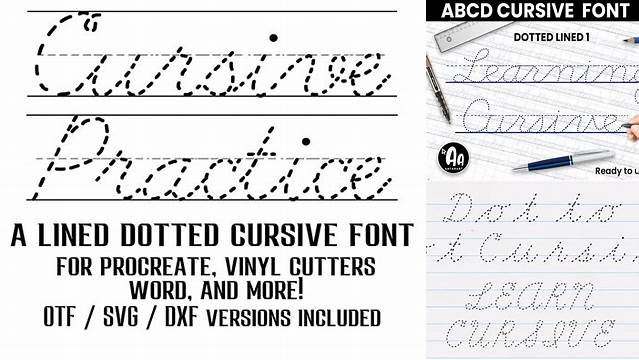
Free Cursive Dotted Fonts: Download & Trace!
Hey guys! Ever wanted to teach someone cursive writing in a super fun and engaging way? Or maybe you're just looking to brush up on your own handwriting skills? Well, you’ve come to the right place! Let’s dive into the world of free cursive dotted trace fonts. We'll explore where to find them, how to use them, and why they're so awesome. Get ready to download, trace, and transform your handwriting!
Understanding Cursive Dotted Trace Fonts
So, what exactly are cursive dotted trace fonts? Simply put, these are fonts designed with dotted lines that you can trace over. They're perfect for beginners learning cursive, kids practicing their penmanship, or anyone who wants a guided approach to improving their handwriting. The beauty of these fonts lies in their simplicity and effectiveness; they provide a visual guide, making the learning process much easier and more enjoyable. You can find various styles, from basic cursive to more elaborate and artistic fonts. The goal is to follow the dotted lines, getting a feel for the curves and loops that make cursive writing so elegant. Using cursive dotted trace fonts ensures that learners develop muscle memory, which is essential for mastering handwriting. Plus, the act of tracing itself can be quite therapeutic! Whether you're a teacher, parent, or student, these fonts are an invaluable tool for anyone interested in mastering the art of cursive.
Benefits of Using Dotted Cursive Fonts
Dotted cursive fonts offer a plethora of benefits for learners of all ages. For starters, they provide a structured way to learn cursive, making it less intimidating. Instead of staring at a blank page, wondering where to begin, learners have clear guidelines to follow. This can boost their confidence and keep them motivated. Secondly, using dotted cursive fonts helps develop fine motor skills. The act of carefully tracing the dotted lines strengthens hand muscles and improves hand-eye coordination. This is particularly beneficial for young children who are still developing these essential skills. Additionally, dotted fonts promote better letter formation. By consistently tracing the correct shapes, learners are more likely to internalize the proper way to write each letter. This reduces the chances of developing bad habits that can be difficult to break later on. Finally, these fonts can make learning cursive more engaging and fun! The visual aid and interactive nature of tracing can transform what might otherwise be a tedious task into an enjoyable activity. So, whether you’re a teacher looking for a new way to teach cursive or an adult wanting to improve your handwriting, dotted cursive fonts are a fantastic option.
Where to Find Free Cursive Dotted Fonts
Finding free cursive dotted fonts is easier than you might think! The internet is brimming with resources offering a variety of options. One of the best places to start is by searching online font repositories like FontSpace, DaFont, and MyFonts. These sites often have categories specifically for handwriting or dotted fonts, making your search a breeze. Another great resource is Teachers Pay Teachers, where many educators share free or low-cost dotted font resources. You might also find some hidden gems on educational websites and blogs that offer free printables and handwriting worksheets. When searching, use specific keywords like “free cursive dotted font,” “traceable cursive font,” or “handwriting practice font” to narrow down your results. Be sure to check the licensing agreements for each font to ensure it's free for personal or commercial use, depending on your needs. Also, keep an eye out for font bundles or packages, as these can offer a variety of styles and sizes in one convenient download. With a little bit of searching, you'll be able to find the perfect free cursive dotted font to suit your needs.
Creating Practice Sheets with Your New Font
Now for the fun part: creating practice sheets using your newly installed cursive dotted font! Fire up your favorite word processor (like Microsoft Word, Google Docs, or LibreOffice) or design software (such as Adobe InDesign or Canva). In your document, select the cursive dotted font from the font menu. Type the letters, words, or sentences you want to include in your practice sheet. Adjust the font size and spacing to suit your needs. You might want to create a template with rows of dotted letters or words for learners to trace. Add some visual elements, like borders or illustrations, to make the practice sheet more engaging. Consider including both uppercase and lowercase letters, as well as numbers and punctuation marks. For a more advanced exercise, create sentences or short paragraphs for learners to practice their cursive writing in context. Once you're happy with your practice sheet, save it as a PDF file for easy printing. You can then print out multiple copies for use in the classroom or at home. With a little creativity, you can create personalized and effective practice sheets that will help learners master the art of cursive writing.
Tips for Effective Cursive Tracing Practice
To make the most of your cursive tracing practice, here are some helpful tips. First, encourage learners to trace slowly and carefully. Focus on following the dotted lines as precisely as possible, rather than rushing through the exercise. Second, emphasize the importance of proper posture and grip. Sitting upright and holding the pen correctly can make a big difference in handwriting quality. Third, provide regular feedback and encouragement. Let learners know what they're doing well and offer constructive criticism on areas that need improvement. Fourth, incorporate different types of practice exercises. For example, you might start with individual letters, then move on to words, and finally to sentences. Fifth, make it fun! Use colorful pens or markers, and incorporate games or activities that make learning cursive more engaging. Sixth, be patient and persistent. Mastering cursive writing takes time and practice. Don't get discouraged if you don't see results immediately. With consistent effort, learners will gradually improve their handwriting skills. Finally, celebrate successes along the way. Acknowledge and reward progress to keep learners motivated and engaged. By following these tips, you can create a positive and effective cursive tracing practice experience.
Cursive Dotted Fonts for Different Age Groups
When choosing a cursive dotted font, it's important to consider the age and skill level of the learner. For younger children who are just beginning to learn cursive, a simpler, more basic font is often the best choice. Look for fonts with large, clear dots and easy-to-follow letterforms. Avoid fonts with overly elaborate flourishes or complex connections between letters. As learners progress, you can gradually introduce more challenging fonts with smaller dots and more intricate designs. For older children and adults, you might choose a font that closely resembles traditional cursive handwriting. Consider the specific needs and preferences of the learner when making your selection. Some learners may prefer a bolder font, while others may prefer a lighter, more delicate font. Experiment with different fonts until you find one that is comfortable and effective for the individual learner. Also, be sure to take into account the size of the practice sheet and the amount of space available for tracing. A font that looks great on a computer screen may not be as effective when printed out in a smaller size. By carefully considering the age and skill level of the learner, you can choose a cursive dotted font that will maximize their learning potential.
Maintaining Handwriting Skills After Tracing
So, you've diligently practiced tracing your cursive dotted font, and your handwriting is looking pretty good. But how do you maintain those skills over time? The key is to continue practicing regularly, even after you've mastered the basics. One way to do this is to incorporate cursive writing into your daily routine. Write notes, letters, or journal entries in cursive. Use cursive to address envelopes or sign your name on documents. The more you use cursive, the more natural and effortless it will become. Another helpful tip is to periodically review your handwriting and identify areas that need improvement. Focus on practicing those specific letters or connections that you find challenging. You might also consider joining a handwriting group or taking a calligraphy class to further refine your skills. Additionally, pay attention to your posture and grip when writing. Maintaining good habits will help prevent your handwriting from deteriorating over time. Finally, remember that handwriting is a skill that requires ongoing effort. Don't get discouraged if your handwriting occasionally slips. Just keep practicing, and you'll be able to maintain your cursive writing skills for years to come.
Exploring Different Styles of Cursive Fonts
The world of cursive fonts is vast and varied, with styles ranging from traditional to modern, elegant to playful. Exploring different styles of cursive fonts can add a unique flair to your handwriting and allow you to express your personality. Traditional cursive fonts, like Spencerian and Palmer, are characterized by their graceful curves and formal appearance. These fonts are often used for calligraphy and formal invitations. Modern cursive fonts, on the other hand, tend to be more streamlined and contemporary. They often feature simpler letterforms and a more relaxed feel. Elegant cursive fonts are perfect for adding a touch of sophistication to your writing. These fonts typically have delicate strokes and intricate details. Playful cursive fonts are a fun and whimsical choice for informal writing. They often feature quirky letterforms and a lighthearted feel. Experiment with different styles of cursive fonts to find one that suits your personal taste and the specific occasion. You might even consider creating your own custom cursive font to truly express your individuality. With so many different styles to choose from, the possibilities are endless.
The History and Evolution of Cursive Writing
Cursive writing has a rich and fascinating history, dating back to ancient times. The earliest forms of cursive were developed as a way to write more quickly and efficiently. In ancient Rome, for example, scribes developed a cursive script known as Roman cursive, which allowed them to write documents and letters more rapidly. Over time, cursive writing evolved and diversified, with different styles emerging in different regions and cultures. In the Middle Ages, monks developed elaborate cursive scripts for writing manuscripts and religious texts. During the Renaissance, humanist scholars revived classical forms of cursive writing. In the 18th and 19th centuries, handwriting schools emerged, which standardized cursive writing and taught penmanship to students. The Palmer Method, developed in the late 19th century, became the dominant form of cursive writing in the United States. In recent years, cursive writing has declined in popularity, due in part to the rise of digital technology. However, many educators and parents still believe that cursive writing is an important skill to learn. Understanding the history and evolution of cursive writing can provide valuable insights into its cultural significance and its enduring appeal.
Common Mistakes to Avoid When Tracing Cursive
Tracing cursive can be a great way to learn and improve your handwriting, but it's important to avoid some common mistakes that can hinder your progress. One of the most common mistakes is tracing too quickly. Rushing through the exercise can lead to sloppy and inaccurate letterforms. Instead, focus on tracing slowly and carefully, paying attention to the details of each letter. Another common mistake is lifting your pen too often. Cursive writing is meant to be fluid and connected, so try to keep your pen on the paper as much as possible. Avoid breaking the flow of the writing by lifting your pen unnecessarily. A third mistake is not following the dotted lines closely enough. The purpose of tracing is to learn the correct shapes of the letters, so it's important to stay within the lines. Avoid straying outside the dotted lines or cutting corners. A fourth mistake is not practicing regularly. Like any skill, cursive writing requires consistent practice to improve. Don't expect to become proficient overnight. Set aside time each day to practice tracing, and you'll gradually see improvement. Finally, don't be afraid to ask for help. If you're struggling with a particular letter or connection, seek guidance from a teacher, tutor, or experienced writer. By avoiding these common mistakes, you can maximize the benefits of cursive tracing and develop beautiful handwriting.
Using Cursive Dotted Fonts for Calligraphy Practice
While cursive dotted fonts are primarily designed for learning and improving handwriting, they can also be a valuable tool for calligraphy practice. Calligraphy is the art of beautiful writing, and it requires precision, control, and a keen eye for detail. Using a cursive dotted font can help you develop these skills by providing a visual guide for letterforms and connections. To use a cursive dotted font for calligraphy practice, start by printing out a practice sheet with the font in a large size. Then, use a calligraphy pen or marker to trace over the dotted lines. Focus on maintaining a consistent stroke width and angle, and pay attention to the spacing between letters and words. As you become more comfortable with the letterforms, try varying the pressure on your pen to create thick and thin strokes, a hallmark of calligraphy. You can also experiment with different ink colors and paper types to add visual interest to your calligraphy practice. Additionally, consider using a light box or tracing paper to create your own custom calligraphy practice sheets. By using a cursive dotted font as a foundation, you can develop the skills and techniques needed to create beautiful and elegant calligraphy.
Combining Dotted Fonts with Other Handwriting Resources
To maximize the benefits of using dotted fonts, it's helpful to combine them with other handwriting resources. One valuable resource is handwriting workbooks, which provide structured exercises and practice sheets for improving penmanship. Look for workbooks that cover the basics of letter formation, spacing, and slant. Another helpful resource is online handwriting tutorials, which offer step-by-step instructions and demonstrations for writing different letters and words. Many websites and YouTube channels offer free handwriting tutorials for both cursive and print. Additionally, consider using handwriting apps, which provide interactive exercises and feedback for improving your penmanship. Some handwriting apps even allow you to track your progress and set goals. Furthermore, don't underestimate the value of practicing with real handwriting samples. Look at examples of beautiful handwriting and try to emulate the letterforms and style. You can find handwriting samples in books, magazines, and online. Finally, remember to practice regularly and be patient with yourself. Improving your handwriting takes time and effort, but with the right resources and a dedicated approach, you can achieve your handwriting goals.
The Psychological Benefits of Learning Cursive
Beyond the practical applications of learning cursive, there are also several psychological benefits to consider. Learning cursive can improve cognitive skills such as memory, attention, and fine motor coordination. The act of writing in cursive requires focused attention and precise movements, which can strengthen neural pathways in the brain. Additionally, learning cursive can enhance creativity and self-expression. The flowing, connected strokes of cursive writing allow for a more fluid and personal form of communication. Cursive writing can also promote a sense of accomplishment and pride. Mastering a new skill, such as cursive writing, can boost self-confidence and self-esteem. Furthermore, cursive writing can connect us to the past. By learning to write in cursive, we can access and appreciate historical documents and personal letters written in this script. Cursive writing can also be a calming and meditative activity. The rhythmic movements of writing can help reduce stress and promote relaxation. Finally, cursive writing can foster a sense of identity and individuality. Our handwriting is unique to us, and learning to write in cursive can help us express our personality and style. By recognizing these psychological benefits, we can appreciate the value of cursive writing beyond its functional aspects.
Cursive Dotted Font Generators Online
If you're looking for a quick and easy way to create custom cursive dotted fonts, there are several online generators that can help. These tools allow you to input text and then generate a dotted version of the text in a cursive font. Some generators offer a variety of cursive fonts to choose from, while others allow you to customize the size, spacing, and color of the dots. To use a cursive dotted font generator, simply type your text into the designated field and select your desired options. Then, click the "Generate" or "Create" button to produce the dotted version of your text. You can then download the generated image or PDF file for printing or use in your handwriting practice. Keep in mind that the quality of the generated font may vary depending on the tool you use. Some generators may produce fonts that are pixelated or have uneven dots. Be sure to preview the generated font before downloading it to ensure that it meets your expectations. Additionally, some generators may require you to create an account or pay a fee to access certain features. However, there are also many free cursive dotted font generators available online. With a little bit of searching, you can find a tool that meets your needs and allows you to create custom cursive dotted fonts quickly and easily.
The Debate: Cursive vs. Print Handwriting
The debate over whether to teach cursive or print handwriting in schools has been ongoing for many years. Proponents of cursive argue that it is important for preserving tradition, improving cognitive skills, and fostering a sense of personal identity. They believe that cursive writing helps students develop fine motor skills, enhance memory, and connect with historical documents. On the other hand, proponents of print handwriting argue that it is more legible, easier to learn, and more relevant in the digital age. They believe that print handwriting is more practical for everyday use and that it prepares students for using computers and other technology. Studies have shown that both cursive and print handwriting have their own advantages and disadvantages. Some studies suggest that cursive writing may improve cognitive skills, while others suggest that print handwriting may be more legible. Ultimately, the decision of whether to teach cursive or print handwriting depends on the specific goals and priorities of the school or educational system. Some schools choose to teach both cursive and print, while others focus on one or the other. Regardless of which method is chosen, it is important to provide students with ample opportunities to practice and develop their handwriting skills.
Cursive and Dyslexia: Helpful or Hindrance?
The relationship between cursive writing and dyslexia is a complex and often debated topic. Some experts believe that cursive writing can be helpful for individuals with dyslexia, while others believe that it may be a hindrance. Proponents of cursive for dyslexic learners argue that the connected strokes of cursive writing can help reduce letter reversals and improve reading fluency. They believe that the continuous flow of cursive can make it easier for dyslexic individuals to distinguish between similar-looking letters, such as b and d. Additionally, cursive writing may help improve fine motor skills and hand-eye coordination, which can be beneficial for dyslexic learners. However, opponents of cursive for dyslexic learners argue that the complex letterforms and connections of cursive writing can be confusing and overwhelming. They believe that the added complexity of cursive may make it more difficult for dyslexic individuals to learn and master handwriting. Additionally, some research suggests that print handwriting may be more legible and easier to read for dyslexic learners. Ultimately, the decision of whether to teach cursive to a dyslexic individual depends on their specific needs and learning style. Some dyslexic learners may benefit from cursive writing, while others may find it more challenging. It is important to assess each individual's strengths and weaknesses and tailor their handwriting instruction accordingly.
Resources for Teachers: Cursive Dotted Font Activities
Teachers looking to incorporate cursive dotted fonts into their classroom activities have a wealth of resources available to them. One valuable resource is online lesson plans, which provide step-by-step instructions and printable materials for teaching cursive writing. Many websites and educational organizations offer free lesson plans for teachers to use in their classrooms. Another helpful resource is handwriting workbooks, which provide structured exercises and practice sheets for students to improve their penmanship. Look for workbooks that specifically focus on cursive writing and include dotted font activities. Additionally, consider using online handwriting games and activities to make learning cursive more engaging and fun for students. Many websites offer interactive games and activities that allow students to practice their cursive writing skills in a playful way. Furthermore, don't underestimate the value of peer teaching and collaboration. Encourage students to work together and help each other improve their cursive writing skills. You can also create a classroom handwriting center with a variety of cursive writing resources, such as dotted font worksheets, calligraphy pens, and handwriting samples. Finally, remember to provide students with regular feedback and encouragement. Let them know what they are doing well and offer constructive criticism on areas that need improvement. By utilizing these resources and strategies, teachers can effectively incorporate cursive dotted fonts into their classroom activities and help students develop strong handwriting skills.
Cursive in the Digital Age: Is It Still Relevant?
In the digital age, the question of whether cursive writing is still relevant is a topic of ongoing debate. With the widespread use of computers, tablets, and smartphones, many people argue that handwriting is becoming obsolete. They believe that typing and texting are more efficient and practical forms of communication in today's world. However, others argue that cursive writing is still an important skill to learn, even in the digital age. They believe that cursive writing has cognitive benefits, such as improving memory and fine motor skills. Additionally, they argue that cursive writing allows us to connect with historical documents and personal letters written in this script. Furthermore, some people believe that cursive writing is a form of art and self-expression. They argue that handwriting allows us to express our personality and style in a way that typing cannot. Ultimately, the decision of whether to learn and use cursive writing is a personal one. While it may not be as essential as it once was, cursive writing still has value in certain contexts. It can be a useful skill for taking notes, signing documents, and expressing personal creativity. Additionally, learning cursive writing can provide a connection to the past and enhance cognitive skills. Whether or not it is still relevant depends on individual needs and preferences.
Advanced Techniques: Beyond Basic Cursive Tracing
Once you've mastered the basics of cursive tracing, you can explore some advanced techniques to further refine your handwriting skills. One technique is to focus on varying the pressure of your pen to create thick and thin strokes. This is a hallmark of calligraphy and can add visual interest to your handwriting. Another technique is to practice connecting letters in different ways. Experiment with different loop sizes, angles, and connections to find a style that suits your personal taste. Additionally, consider using different types of pens and paper to see how they affect your handwriting. Fountain pens, calligraphy pens, and gel pens can all produce different effects. Furthermore, you can try incorporating flourishes and embellishments into your cursive writing. Flourishes are decorative strokes that add elegance and flair to your handwriting. You can find inspiration for flourishes in calligraphy books and online tutorials. Another advanced technique is to practice writing in different cursive styles, such as Spencerian, Palmer, or Copperplate. Each style has its own unique characteristics and requires different techniques. Finally, don't be afraid to experiment and develop your own unique cursive style. The key is to practice regularly and be patient with yourself. With time and effort, you can develop beautiful and expressive handwriting that reflects your personal style.
Troubleshooting Common Cursive Writing Problems
Even with diligent practice, you may encounter some common problems when learning cursive writing. One common problem is letter reversals, where you accidentally write a letter backwards or upside down. To address this issue, focus on practicing the correct formation of the letter and visualizing it in your mind. Another common problem is inconsistent letter sizes, where some letters are too big or too small. To fix this, pay attention to the baseline and x-height of your handwriting and try to maintain a consistent size for each letter. A third common problem is uneven spacing between letters or words. To improve your spacing, practice writing on lined paper and pay attention to the amount of space you leave between each letter and word. Additionally, you may struggle with certain letter connections, where the letters don't flow smoothly together. To address this, practice connecting those specific letters repeatedly until you develop a comfortable and fluid connection. Furthermore, you may find that your handwriting is too slanted or not slanted enough. To correct this, adjust the angle of your paper and your writing hand until you achieve the desired slant. Finally, remember to be patient and persistent. Improving your cursive writing takes time and effort, so don't get discouraged if you encounter problems along the way. Keep practicing and seeking guidance, and you will eventually overcome these challenges.
The Future of Handwriting Instruction
The future of handwriting instruction is uncertain, but there are several trends and developments that are shaping the way handwriting is taught and learned. One trend is the increasing use of technology in handwriting instruction. Many schools are incorporating digital handwriting tools and apps into their curriculum to help students improve their penmanship. These tools can provide personalized feedback and track student progress. Another trend is the emphasis on teaching both cursive and print handwriting. Some schools are adopting a balanced approach that teaches students both styles of handwriting, allowing them to choose the style that works best for them. Additionally, there is a growing awareness of the importance of handwriting for cognitive development. Research has shown that handwriting can improve memory, fine motor skills, and creativity. As a result, some educators are advocating for the continued inclusion of handwriting in the curriculum. Furthermore, there is a growing emphasis on making handwriting instruction more engaging and fun for students. Teachers are incorporating games, activities, and creative projects into their handwriting lessons to make learning more enjoyable. Finally, there is a growing recognition of the importance of adapting handwriting instruction to meet the needs of individual learners. Teachers are using differentiated instruction strategies to provide personalized support for students who are struggling with handwriting. By embracing these trends and developments, educators can ensure that handwriting instruction remains relevant and effective in the future.
Legal Considerations: Using Fonts Commercially
If you plan to use cursive dotted fonts for commercial purposes, it's important to understand the legal considerations involved. Fonts are considered intellectual property and are protected by copyright law. This means that you need to obtain the appropriate license to use a font commercially. A commercial license allows you to use the font in your business, such as in logos, marketing materials, or products for sale. The specific terms of a commercial license can vary depending on the font designer or foundry. Some licenses may allow you to use the font for unlimited commercial purposes, while others may have restrictions on the number of users, the types of projects, or the geographic region. It's important to carefully review the terms of the license before using the font commercially. If you use a font commercially without a license, you could be subject to legal action, such as a copyright infringement lawsuit. To avoid any legal issues, always check the licensing agreement before using a font commercially. You can usually find this information on the font designer's website or on the website where you downloaded the font. If you're unsure about the licensing terms, it's best to contact the font designer or foundry directly for clarification. By understanding and complying with the legal considerations, you can use cursive dotted fonts commercially without any worries.
The Role of Occupational Therapy in Handwriting Skills
Occupational therapy (OT) plays a crucial role in developing and improving handwriting skills, especially for individuals with fine motor difficulties or learning disabilities. Occupational therapists are trained to assess and address the underlying physical and cognitive skills that are necessary for handwriting, such as hand strength, coordination, visual-motor integration, and sensory processing. OT interventions for handwriting may include activities to improve grip strength, fine motor control, and hand-eye coordination. Therapists may use specialized tools and techniques, such as pencil grips, slant boards, and handwriting templates, to support proper posture and letter formation. Additionally, OTs can help individuals with sensory processing issues by providing strategies to manage sensory input and reduce distractions during handwriting tasks. They may also work on improving visual perception skills, such as visual discrimination and spatial awareness, which are essential for letter recognition and placement on the page. Furthermore, OTs can address cognitive skills that impact handwriting, such as attention, memory, and organization. They may use strategies to help individuals stay focused, remember letter formations, and organize their thoughts before writing. Occupational therapy is an important resource for individuals who struggle with handwriting, as it can provide targeted interventions to address the underlying challenges and promote improved handwriting skills. By working with an occupational therapist, individuals can develop the physical and cognitive skills needed to write legibly and confidently.
DIY Projects: Incorporating Cursive Dotted Fonts
Looking for fun and creative ways to incorporate cursive dotted fonts into your DIY projects? Here are a few ideas to get you started! Create personalized greeting cards or invitations by printing out messages in a cursive dotted font and then tracing over them with colorful markers or pens. You can add embellishments like stickers, glitter, or washi tape to make them even more special. Design custom wall art by printing out inspirational quotes or song lyrics in a cursive dotted font and then framing them. You can use different colors and fonts to create a unique and eye-catching piece of art. Make personalized labels for jars, bottles, or storage containers by printing out the names of the contents in a cursive dotted font and then attaching them to the containers. This is a great way to organize your home and add a personal touch. Create custom gift tags by printing out the recipient's name in a cursive dotted font and then attaching them to presents. You can use different colors and fonts to match the theme of the gift. Make personalized place cards for dinner parties or special events by printing out the guests' names in a cursive dotted font and then placing them on the table. This is a thoughtful and elegant way to welcome your guests. These are just a few ideas to get you started. With a little creativity, you can find countless ways to incorporate cursive dotted fonts into your DIY projects and add a personal touch to your creations.
Conclusion: Mastering Cursive with Dotted Fonts
So, there you have it! Cursive dotted fonts are an amazing resource for learning, practicing, and perfecting your handwriting. Whether you're a beginner just starting out or someone looking to brush up on your skills, these fonts provide a structured and engaging way to improve your penmanship. Remember to explore different styles, create personalized practice sheets, and combine dotted fonts with other handwriting resources. Don't be afraid to experiment and find what works best for you. With patience, persistence, and a little bit of creativity, you can master cursive writing and enjoy the many benefits it has to offer. Happy tracing!